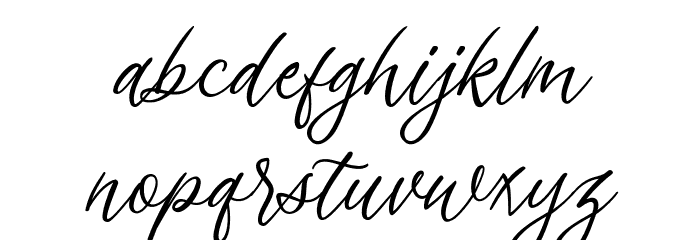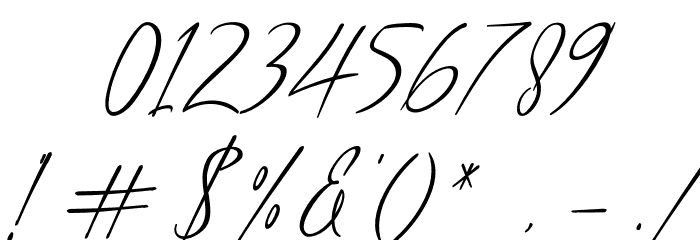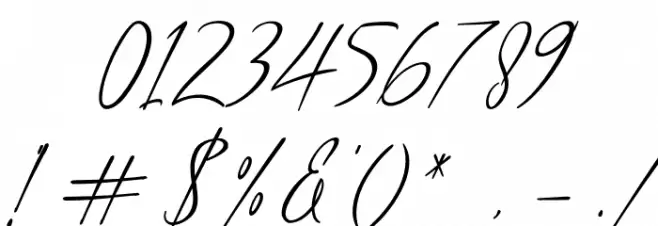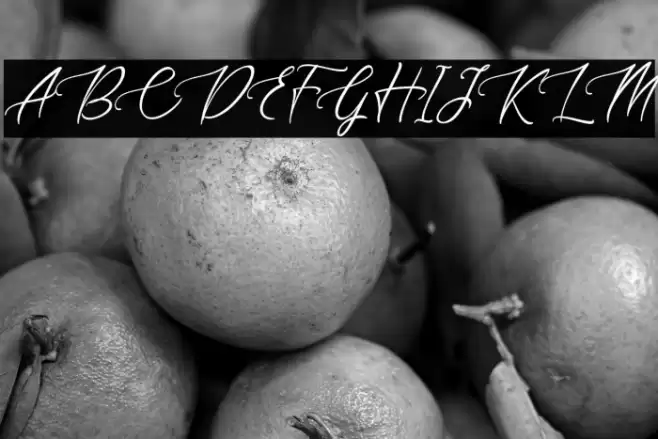
sapha demo Regular Font
This elegant script font features fluid, cursive strokes that convey a sense of sophistication and grace. The uppercase letters are characterized by sweeping lines and flourishes, while the lowercase letters maintain a consistent flow with gentle curves. The numerals are designed with a similar style, ensuring a cohesive look across all characters. Special characters are thoughtfully integrated, maintaining the font's overall aesthetic. This font is ideal for projects that require a touch of elegance and personal flair.
A graceful script font with fluid, cursive strokes and elegant flourishes.
- Proposed Projects: Ideal for wedding invitations, greeting cards, elegant branding, and personal stationery.
- Overall Style: Elegant, Sophisticated
- Use Case: Logos, Invitations, Decorative text